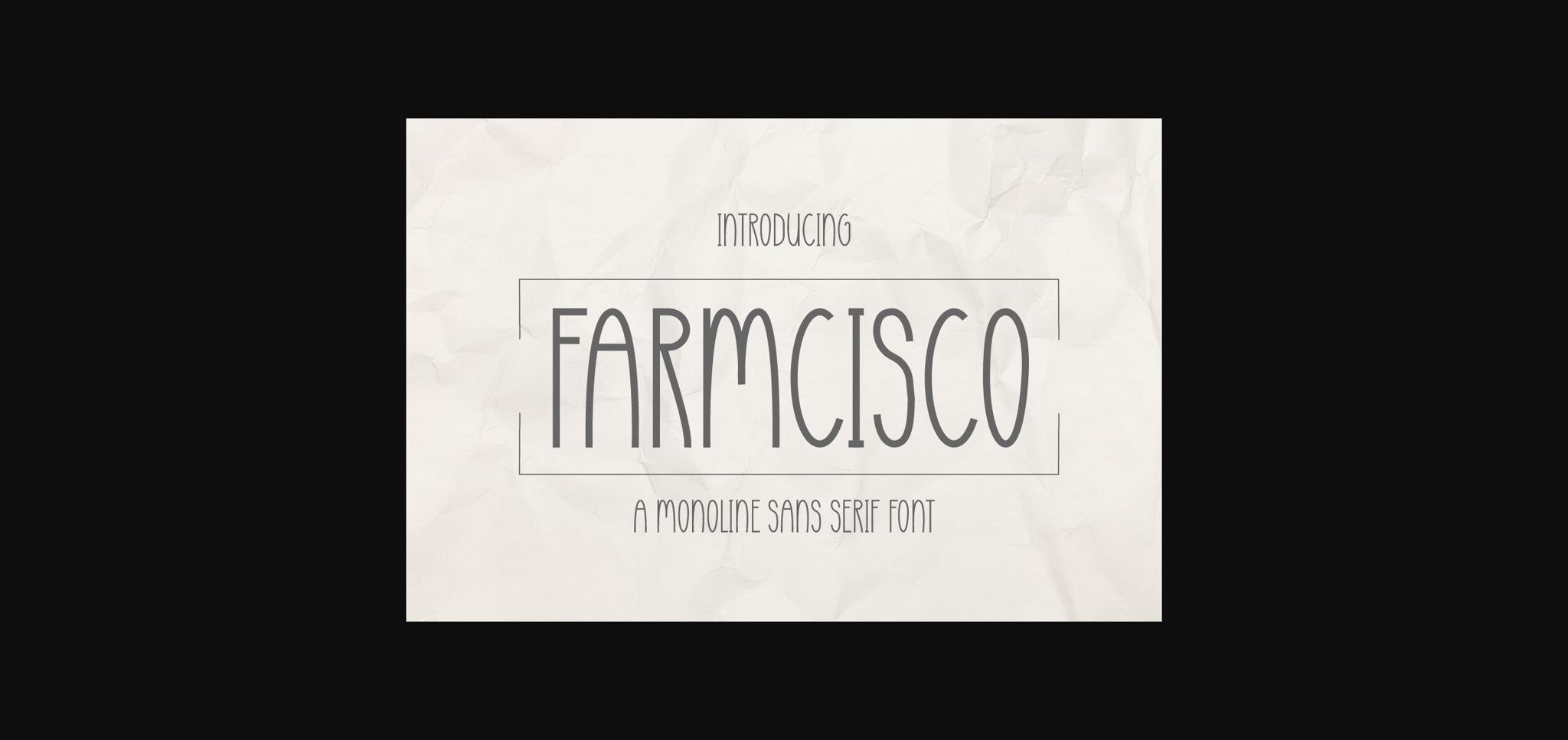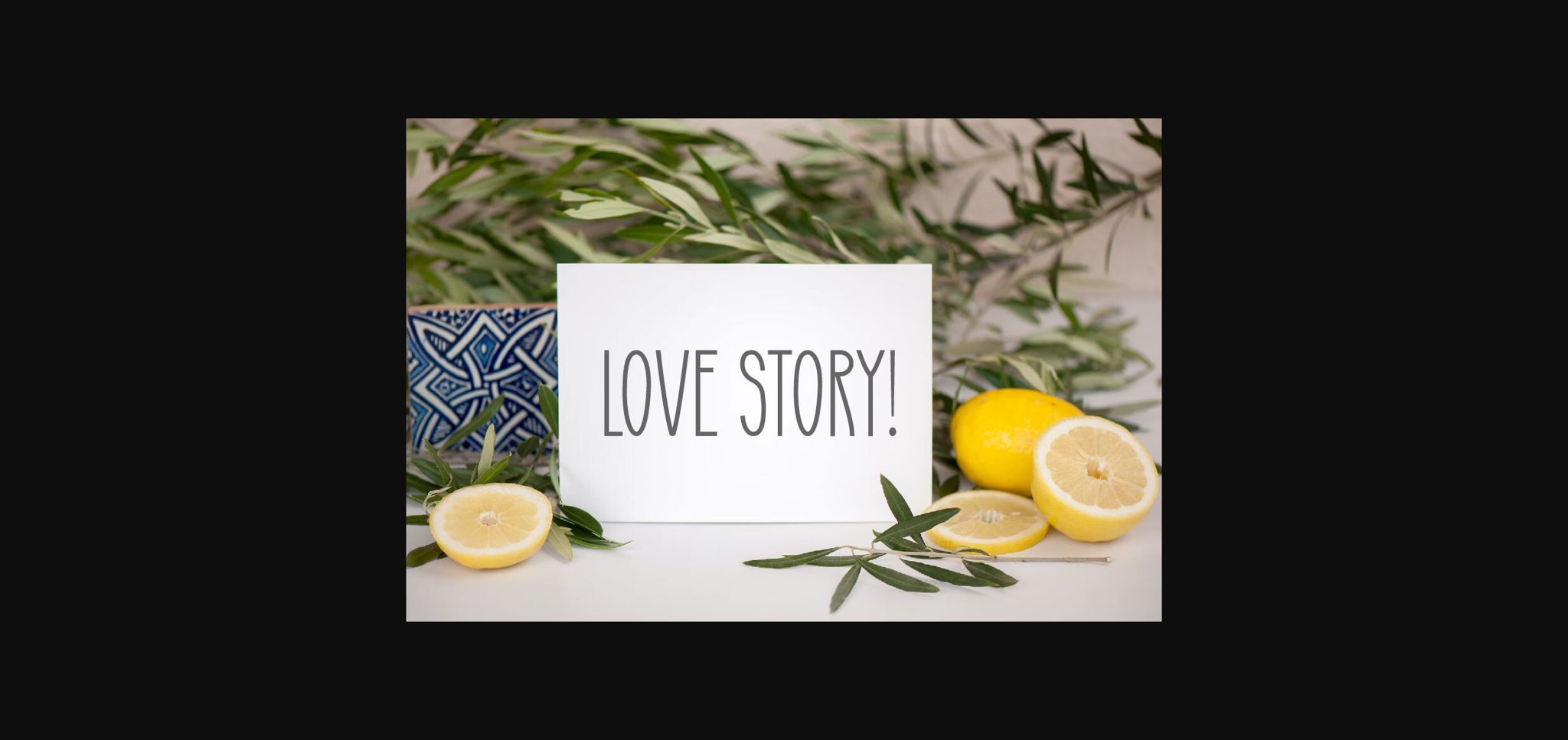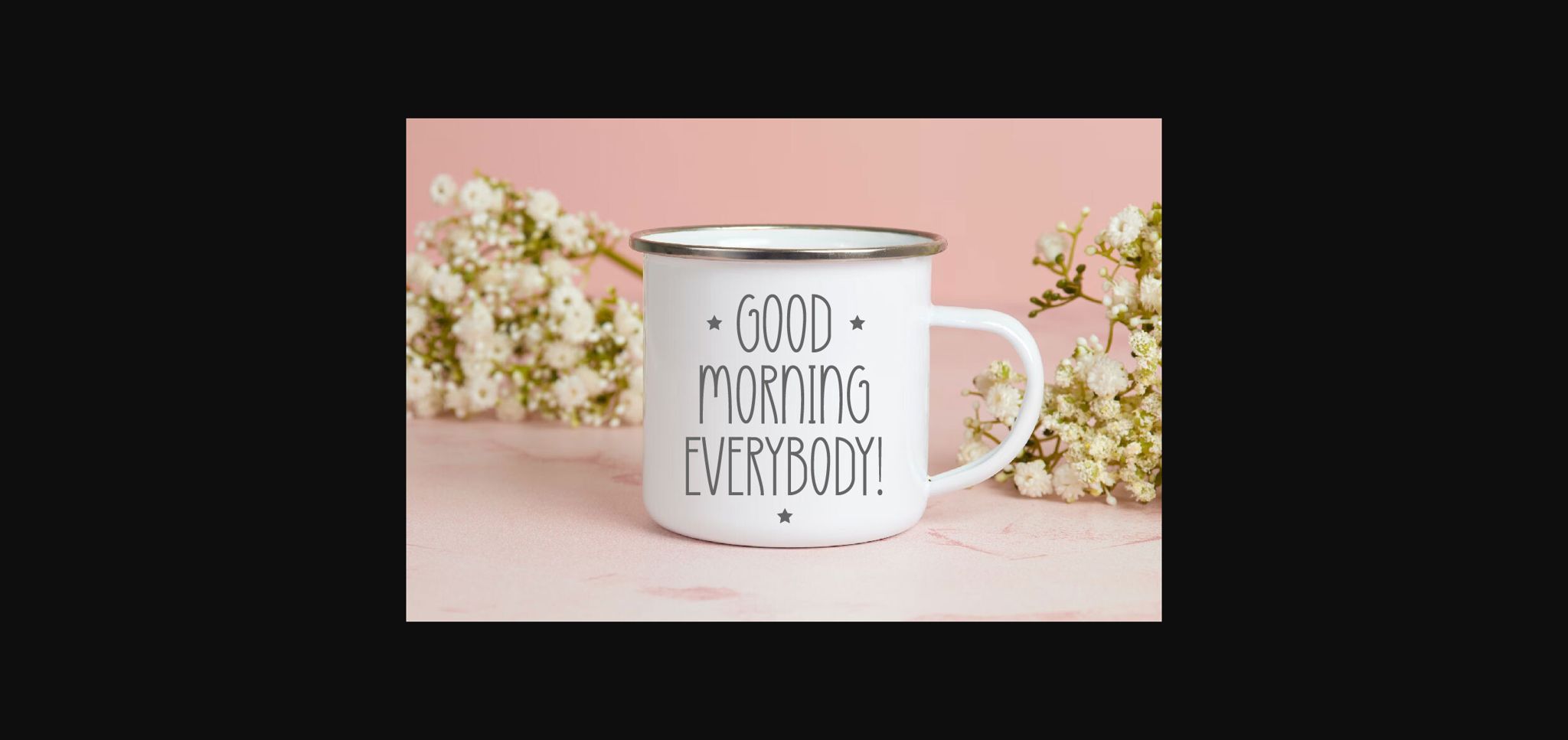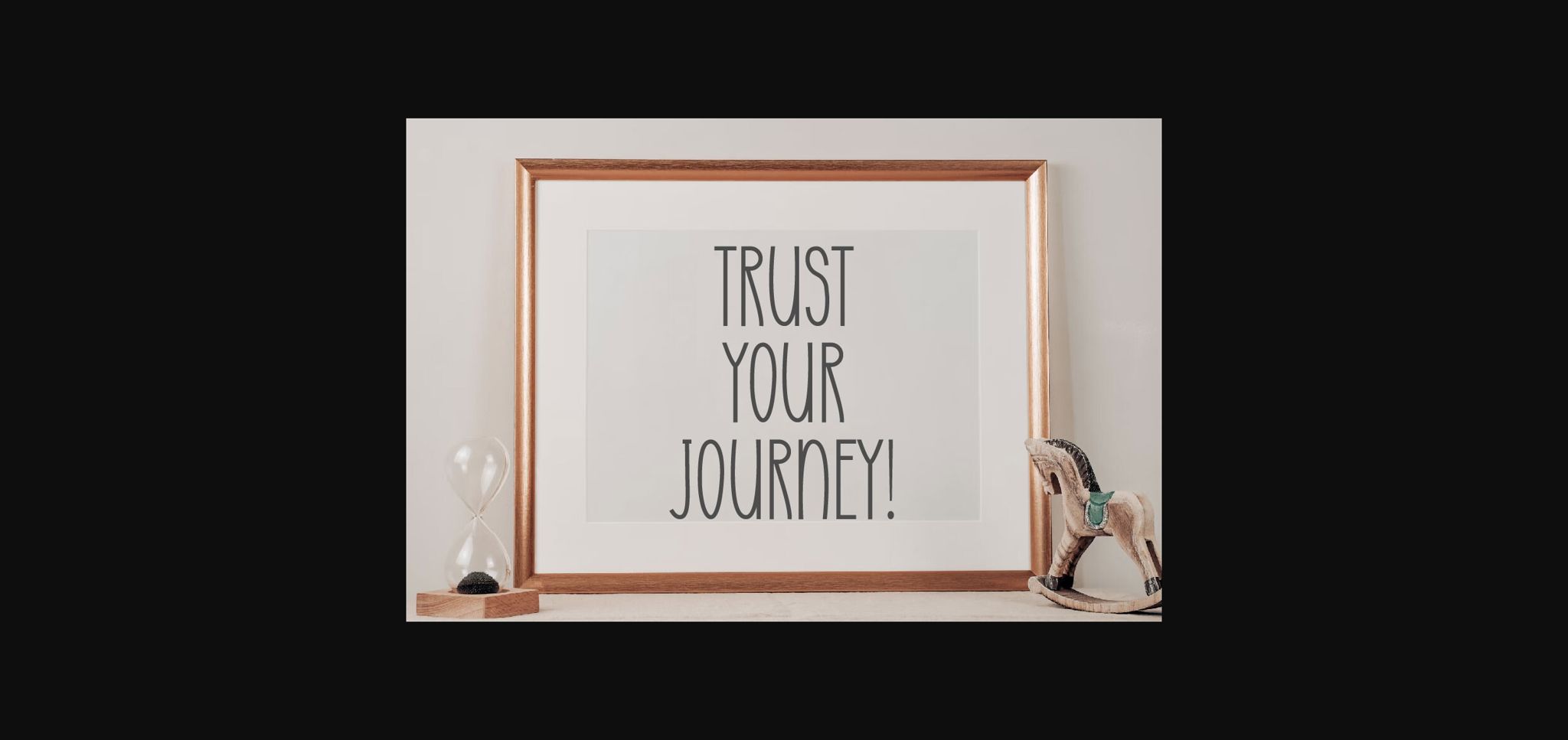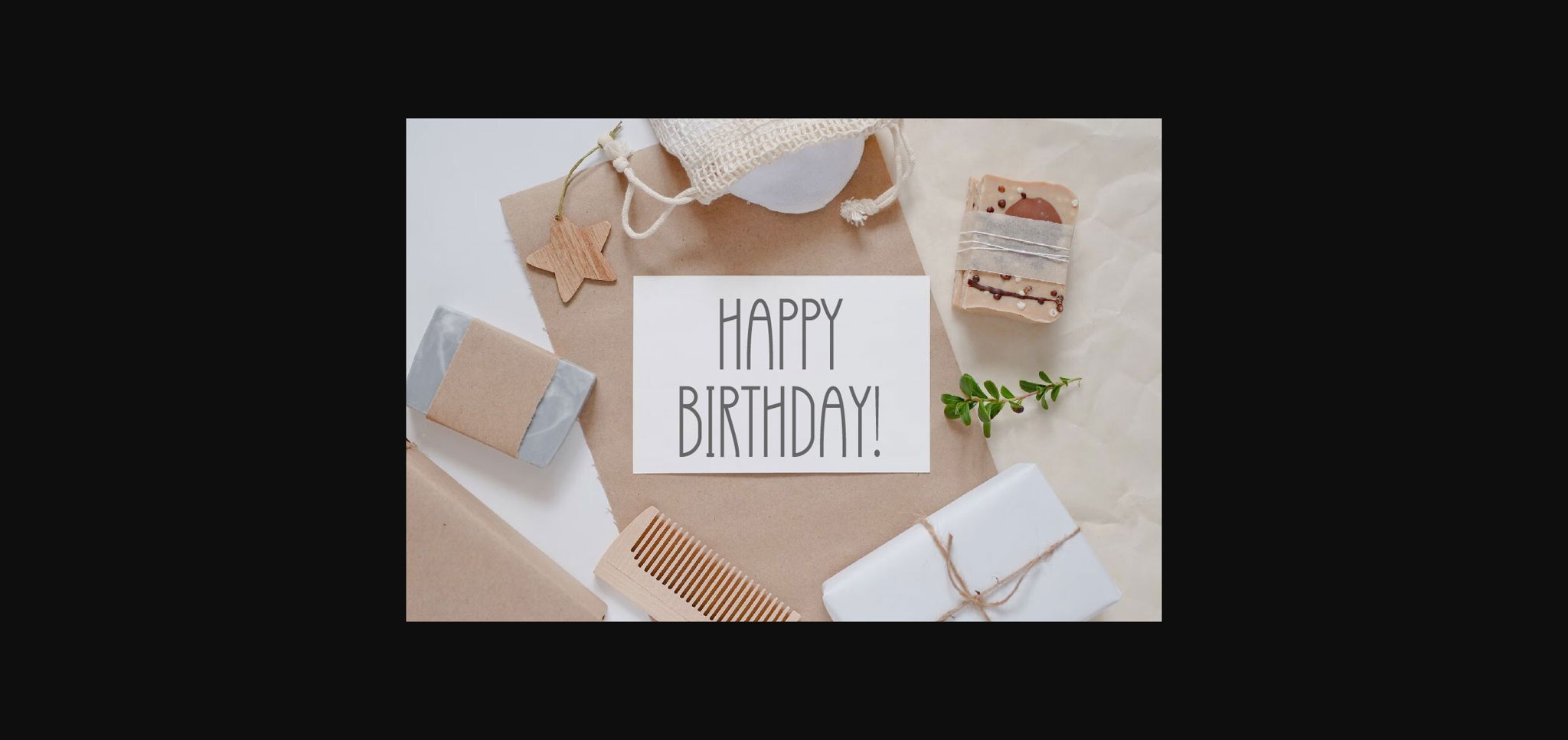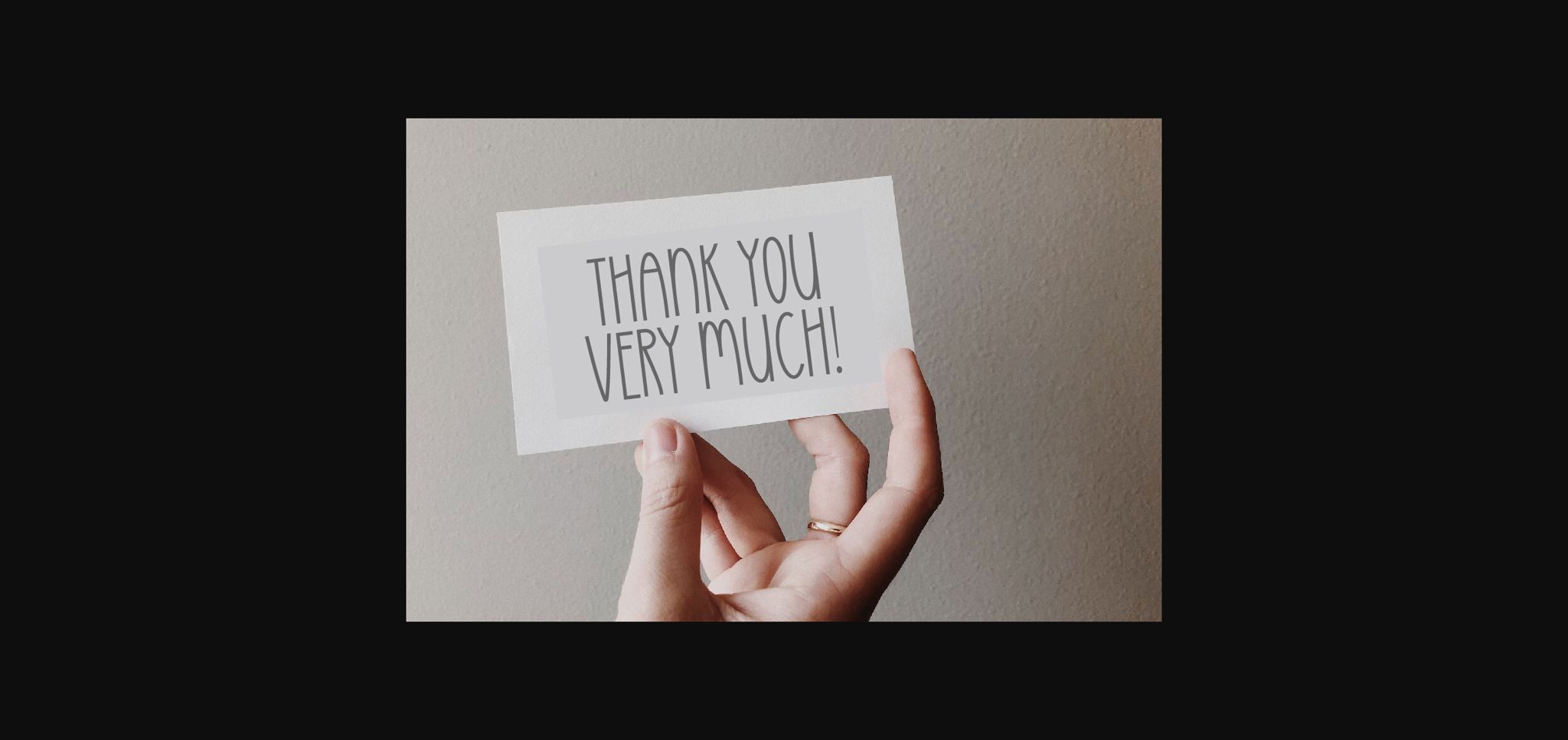
Farmcisco Font
About Farmcisco Font
Farmcisco is a cute sans serif font. This font is perfect for greeting cards, wedding cards, invitations, mugs, t-shirts, quotes, labels, web design, branding, etc. Use it to create spectacular and interesting designs!